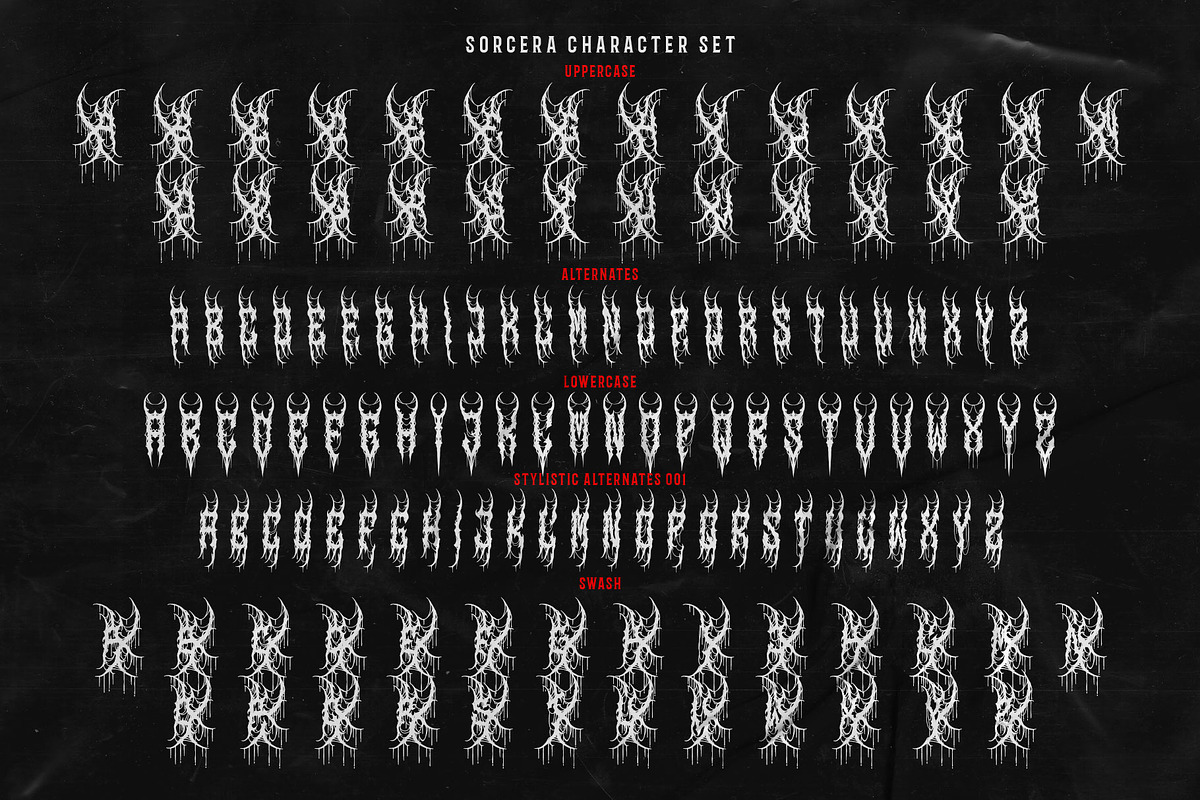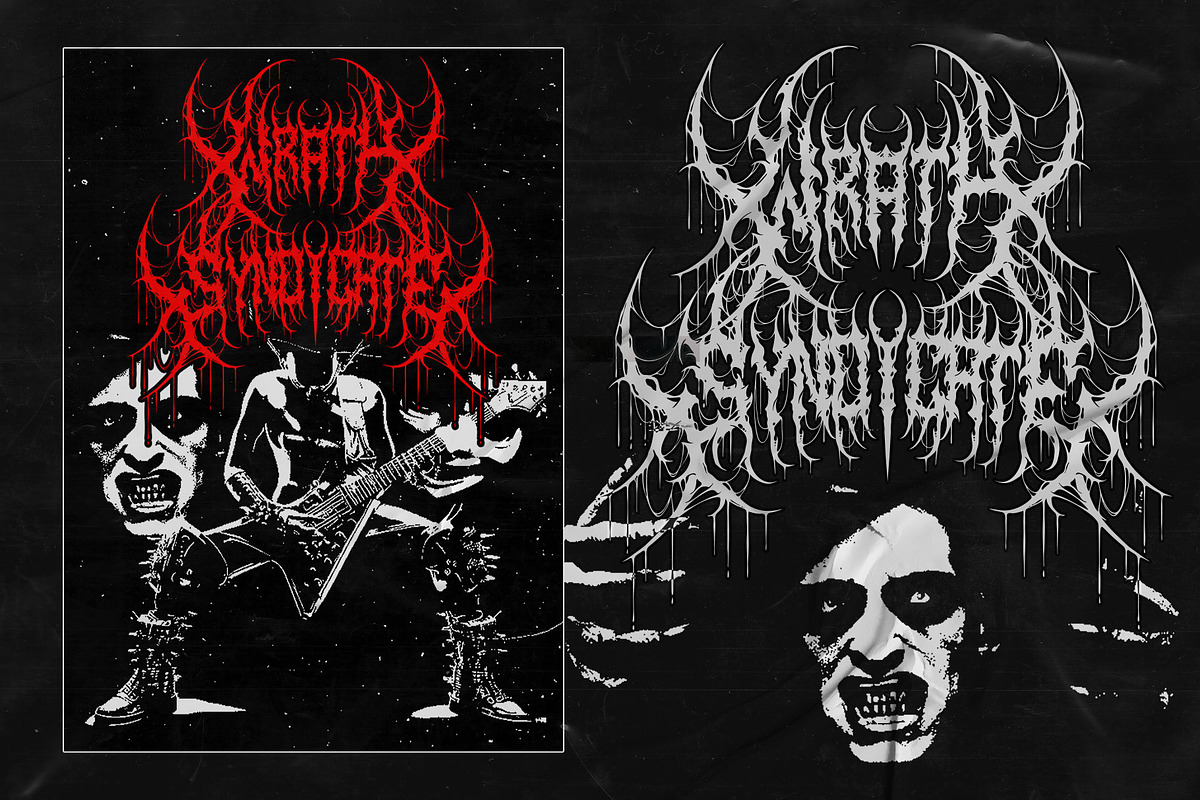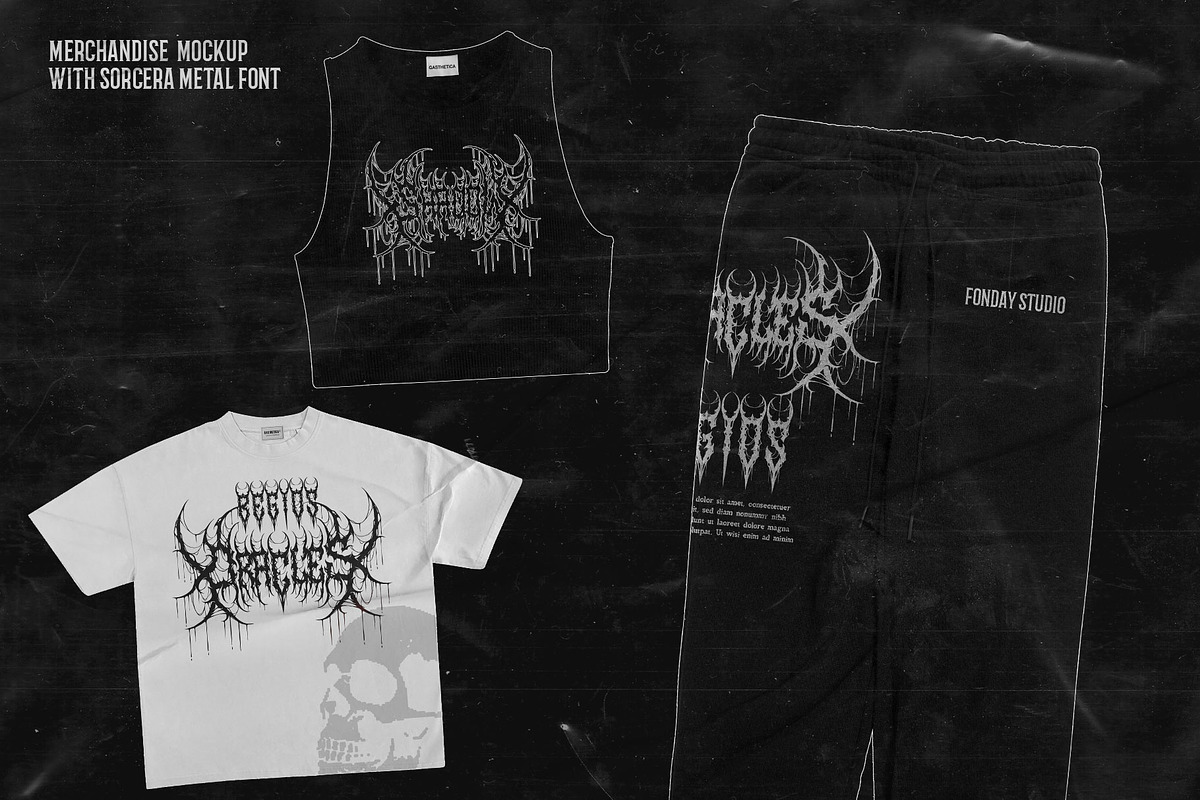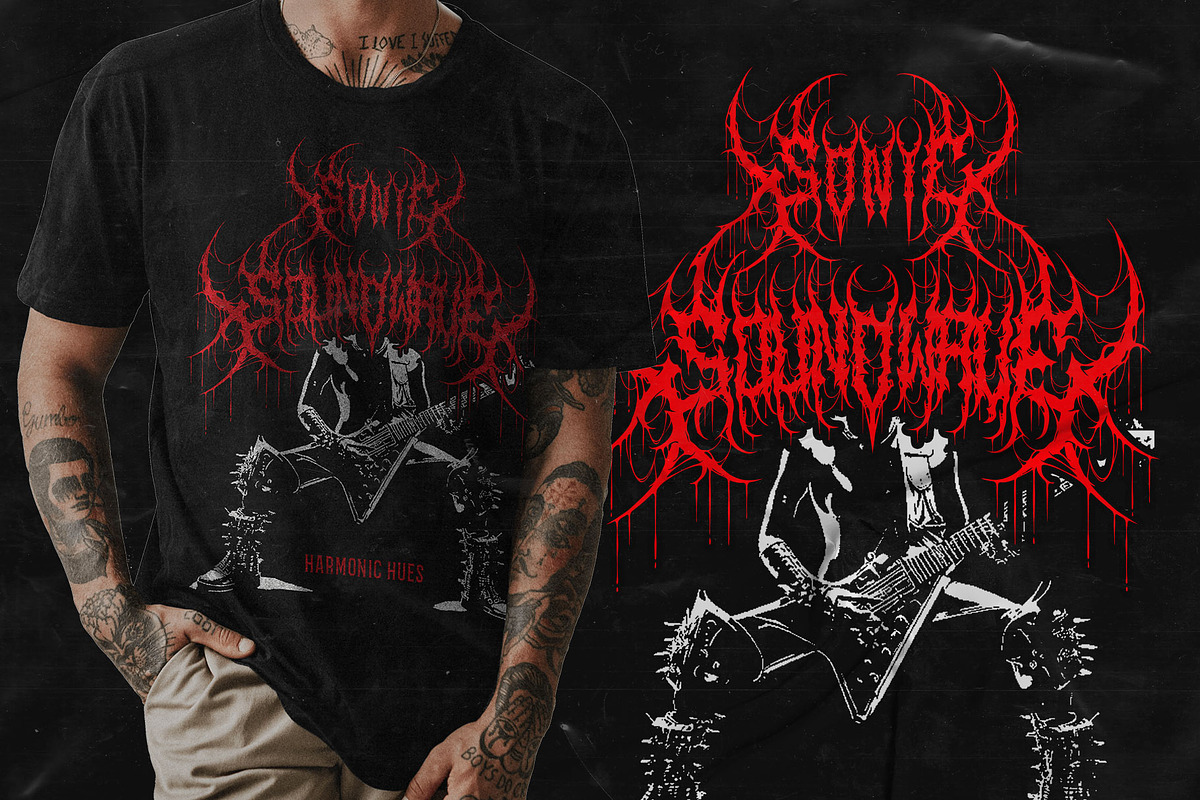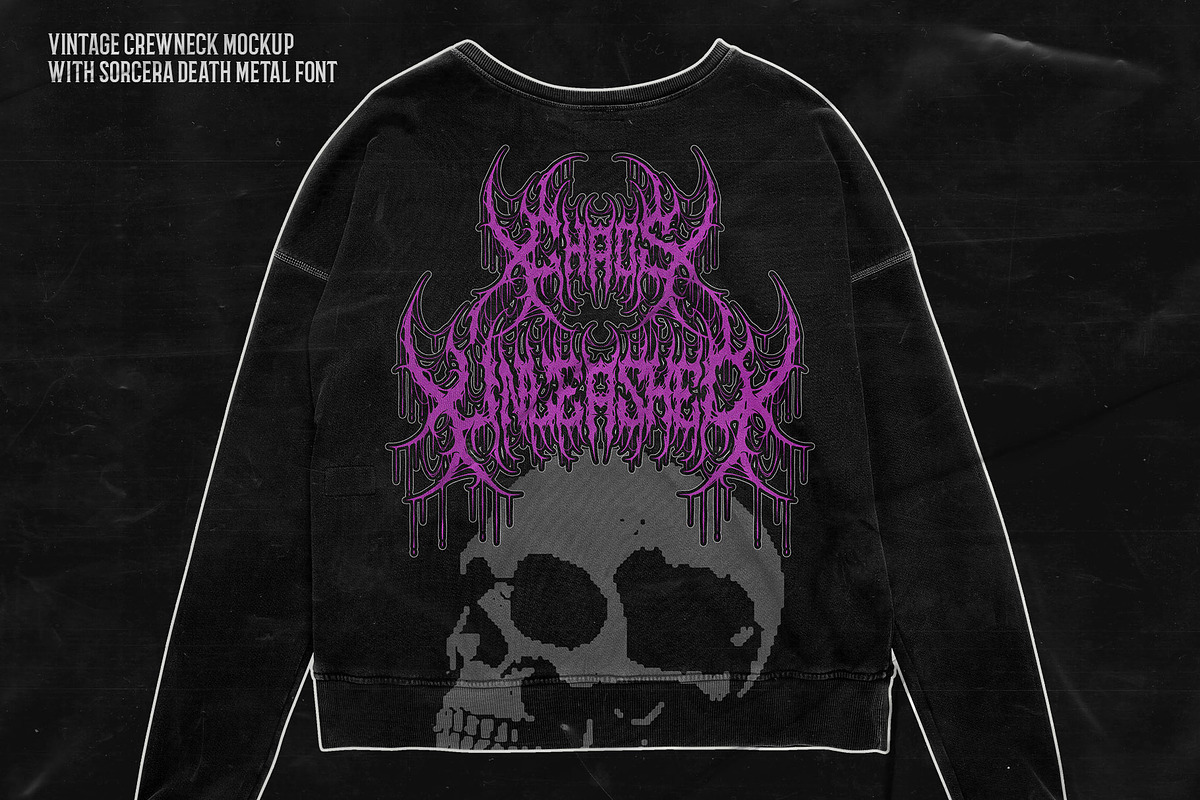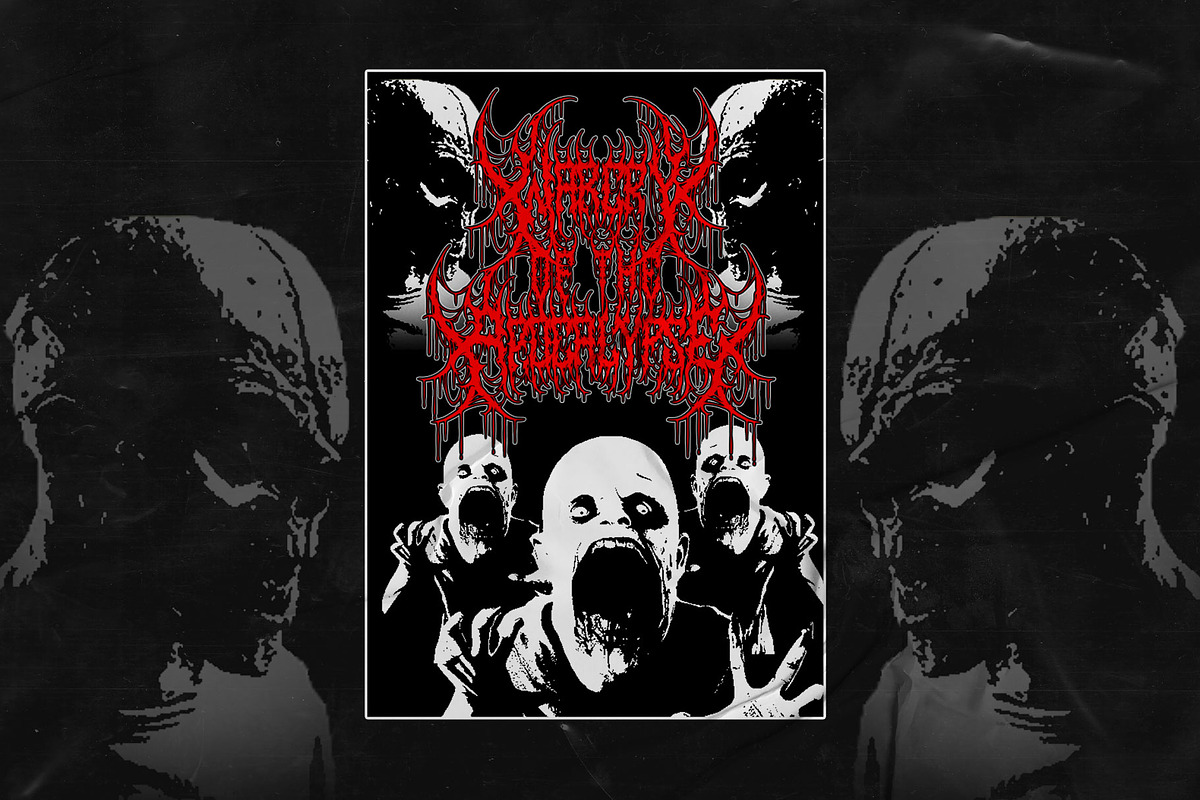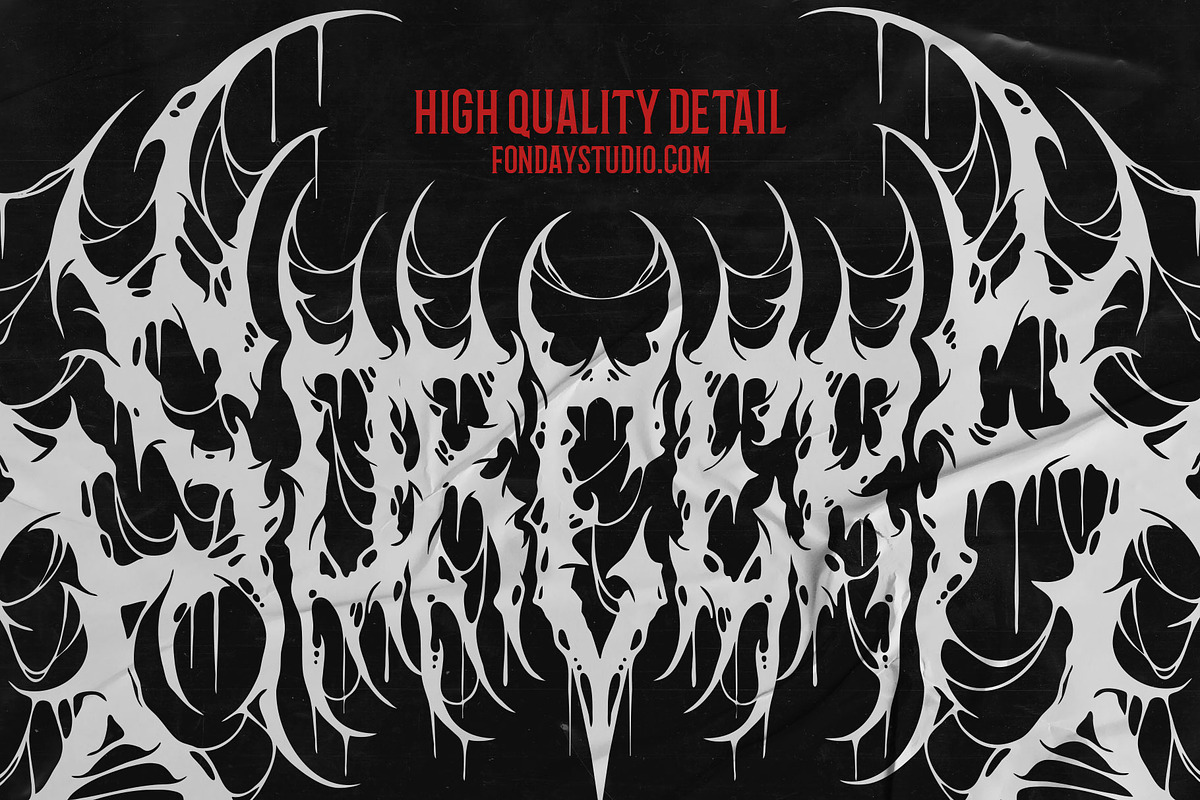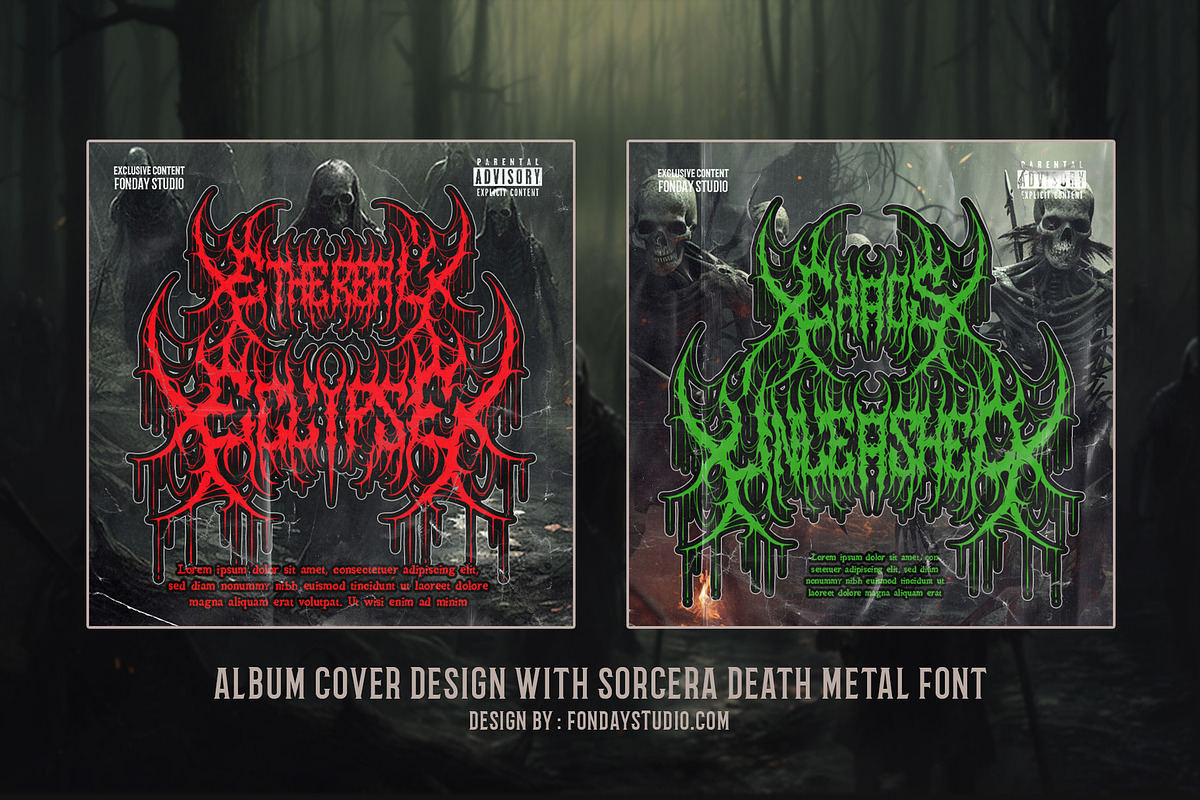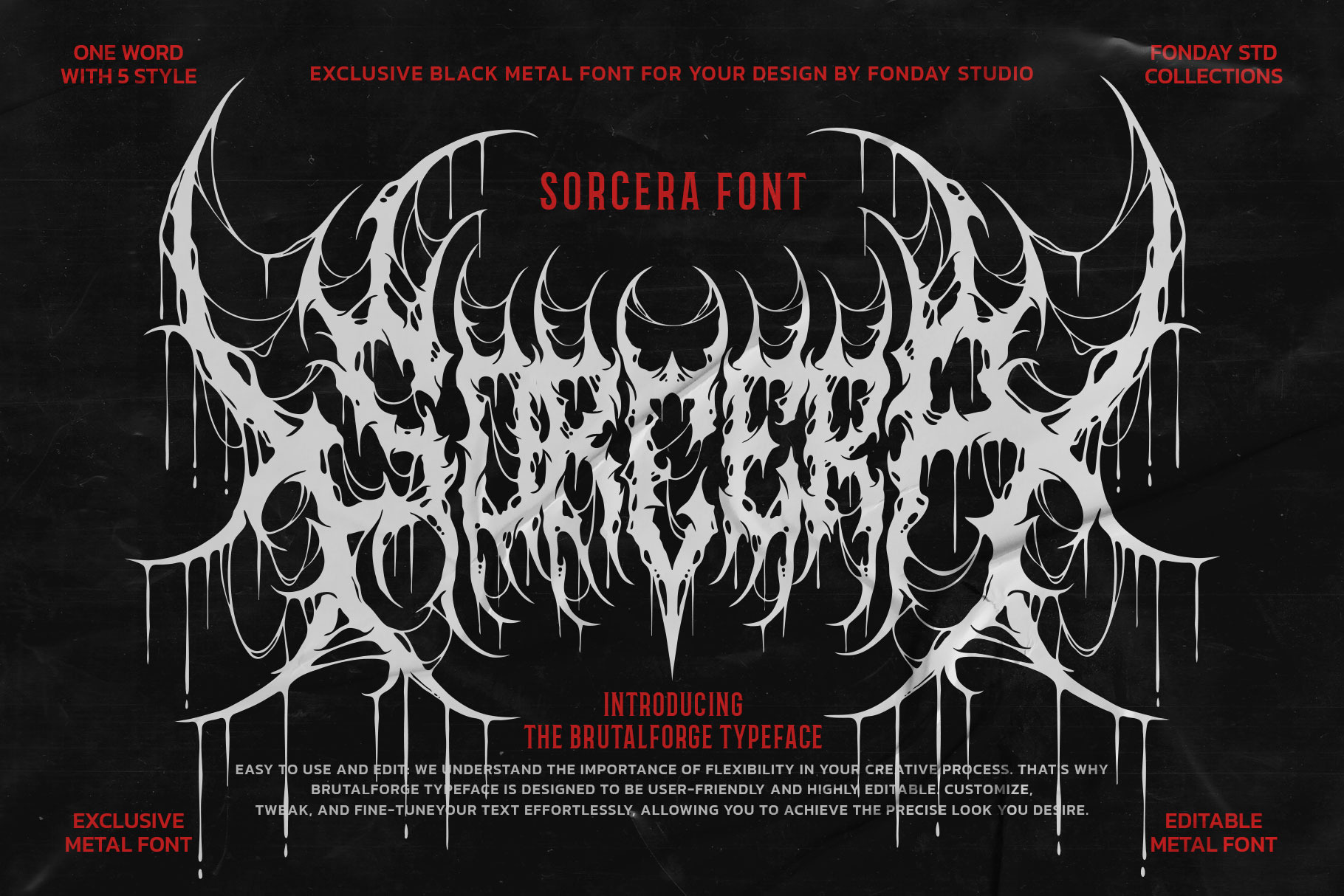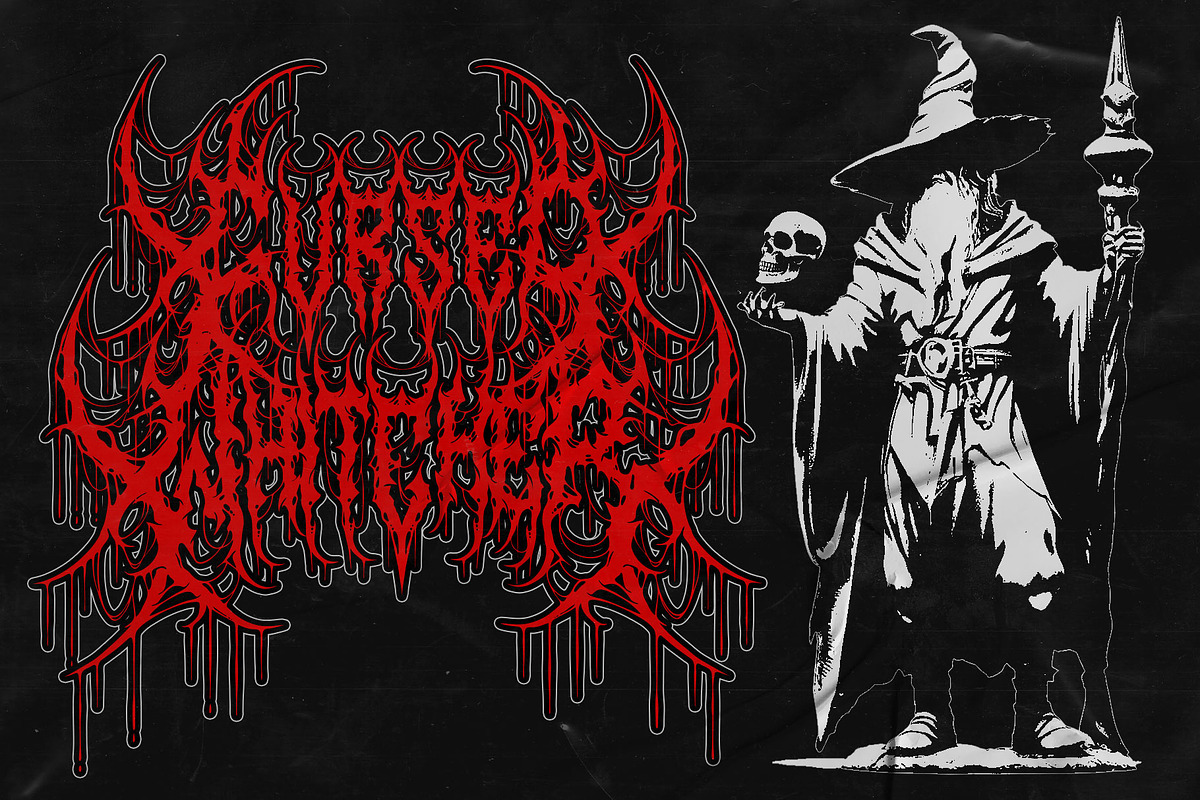
Sorcera Death Metal Font
🤘 Introducing Sorcera Death Metal Font: Where Darkness Meets Typography Brilliance! 🤘
Unleash the power of metal with the meticulously crafted “Sorcera Death Metal Font.” It’s not just detailed; it’s a masterpiece of high-quality, exclusive design.
🔥 Razor-Sharp Precision: Every curve and angle in Sorcera is finely honed, ensuring your designs radiate the raw energy and sharpness of the metal genre.
🤘 Limitless Alternates: Dive into a treasure trove of alternate characters, allowing you to create designs that are as unique as your metal spirit.
✏️ Easy Customization: Sorcera is designed for everyone. Whether it’s posters, logos, t-shirt brands, or album covers, you’ll find it a breeze to modify and create with.
🖤 Versatile for All Metal Themes: From death metal to black metal, thrash, and more, Sorcera adapts seamlessly to any metal theme design, infusing them with darkness and style.
🔒 An Exclusive Experience: This font is more than just a font; it’s your exclusive key to stand out in the metal design realm.
🔥 Elevate Your Metal Designs: Embrace the darkness and redefine your metal aesthetics with Sorcera Death Metal Font.